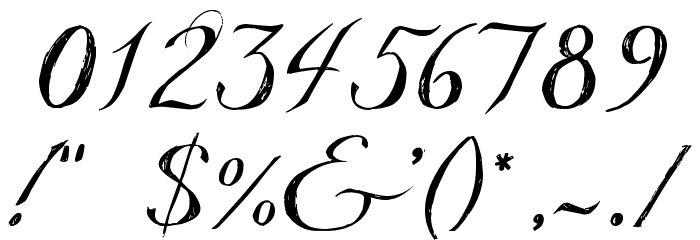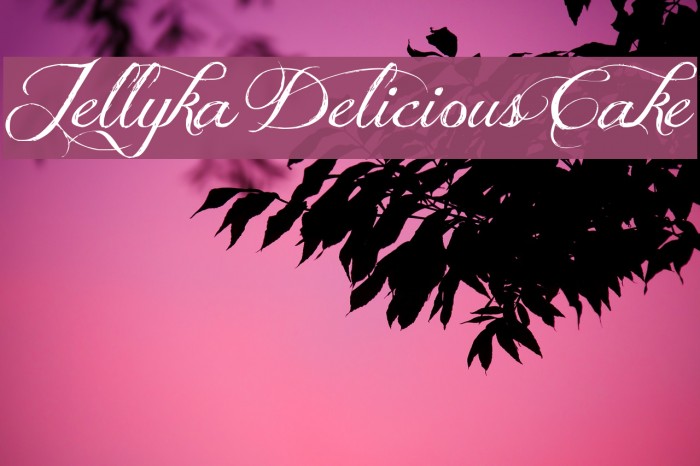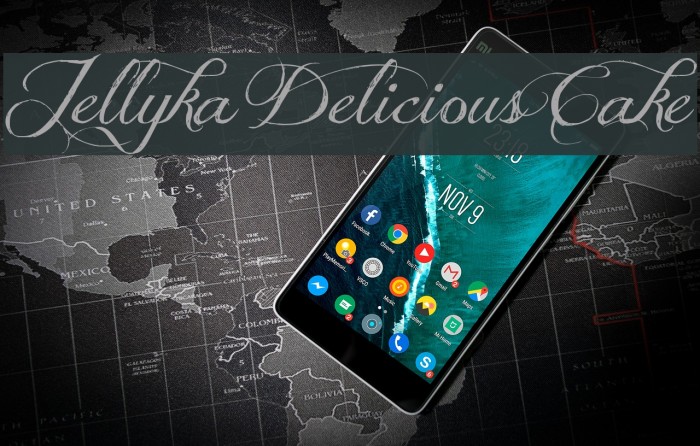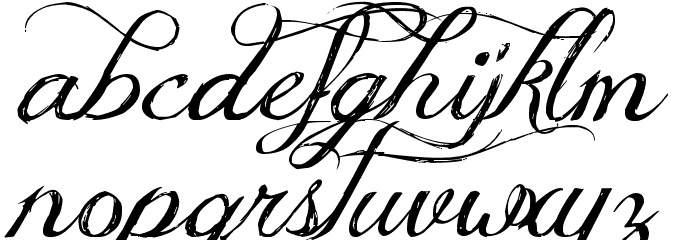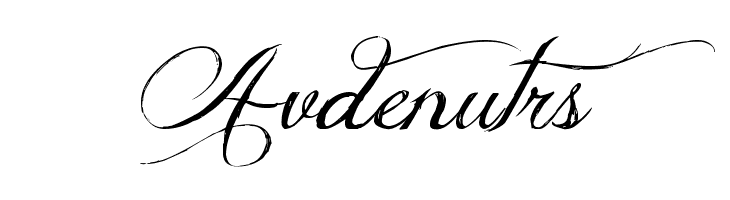
Jellyka Delicious Cake Font
Jellyka Delicious Cake Description
This font exudes a whimsical and elegant charm, characterized by its flowing, cursive script style. The letters are intricately designed with flourishes and swashes that give it a hand-drawn, artistic feel. The uppercase letters are particularly ornate, with extended loops and curves that add a sense of sophistication. The lowercase letters maintain a consistent flow, complementing the uppercase with their graceful lines. Numbers and special characters are equally stylized, ensuring a cohesive look across all text. This font is perfect for projects that require a touch of elegance and creativity.
A whimsical, elegant cursive script with ornate flourishes from Uncategorized fonts.
• Proposed Projects: Ideal for wedding invitations, greeting cards, branding, and decorative projects.
• Overall Style: Decorative
• Use Case: Logos, Headlines, Invitations